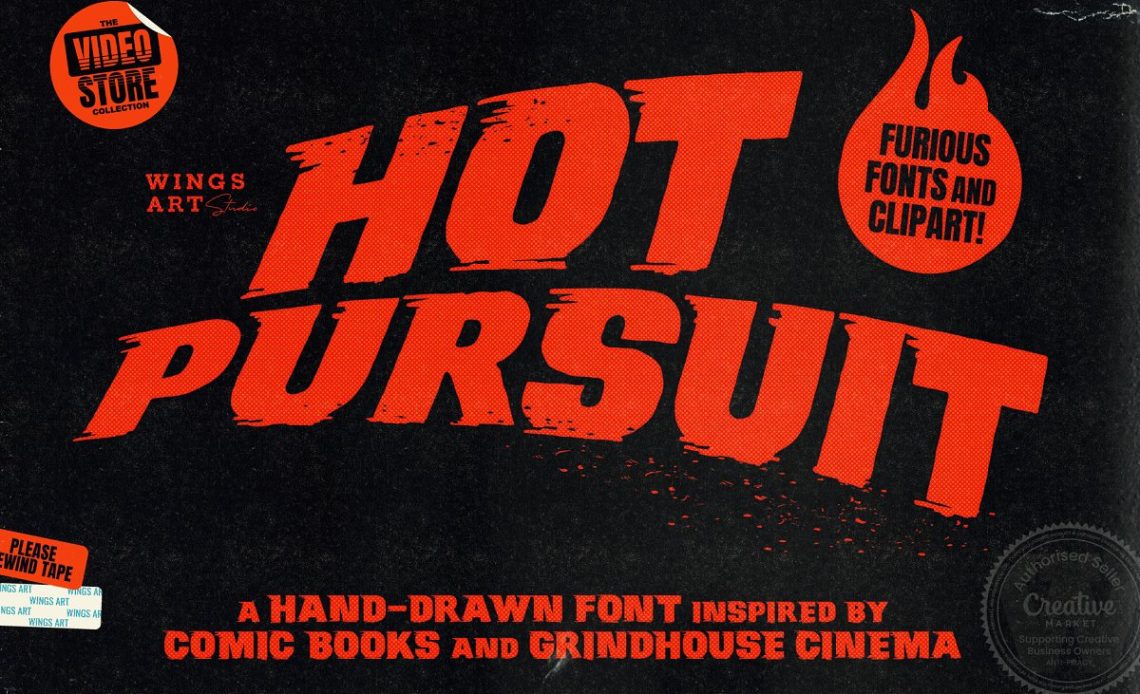
Introducing Hot Pursuit: Grind-house Font, a game-changing addition to the world of fonts. Created by Christopher King, this grungy hand-drawn font is inspired by the captivating world of comic books, Roller Derby, and bad Grindhouse movies.
Hot Pursuit is more than just a font; it's a boiling pot of pop-culture references that will ignite your designs with maximum punch. Picture the adrenaline-fueled chase scenes from 70s movies, the fierce energy of Roller Derby, the spine-tingling horror comics, and the raw grit of Grindhouse cinema. All these elements blend seamlessly in Hot Pursuit, resulting in a font that oozes attitude and captures attention like no other.
With its regular and italic styles, Hot Pursuit allows your titles to race off the page, making it the perfect choice for dynamic movie posters and attention-grabbing headlines. But that's not all! When you download Hot Pursuit, you'll also get access to a treasure trove of original comic art by Christopher King, along with symbols and underlines that beautifully complement your type.
Hot Pursuit is not your average font; it's a bad-ass font that demands attention. Its unique uppercase and lowercase characters, numerals, punctuation, and language support make it versatile for various design projects. Whether you're creating stunning t-shirts, eye-catching posters, captivating stickers, or even adding a touch of edginess to your YouTube videos, Hot Pursuit has got you covered.
But don't just take our word for it; see Hot Pursuit in action for yourself. Check out the visuals and witness the transformative power of this font. The possibilities are endless, and the impact is undeniable.